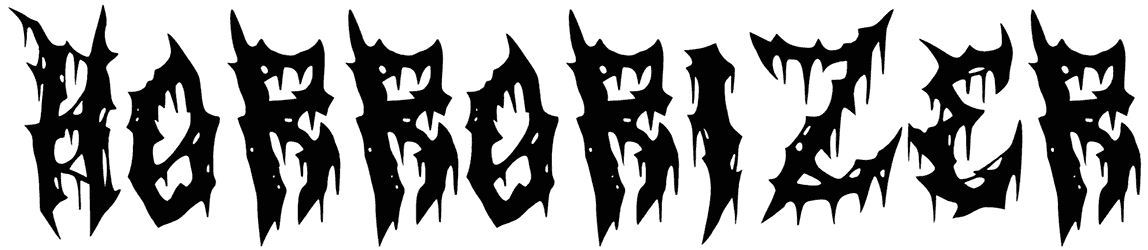
Horrorizer Font
This death metal font, known as Horrorizer, is perfect for creating an authentically eerie vibe in the minds of your audience. The font’s lack of lowercase letters is no problem, so using it to give your digital creations a sense of dread.